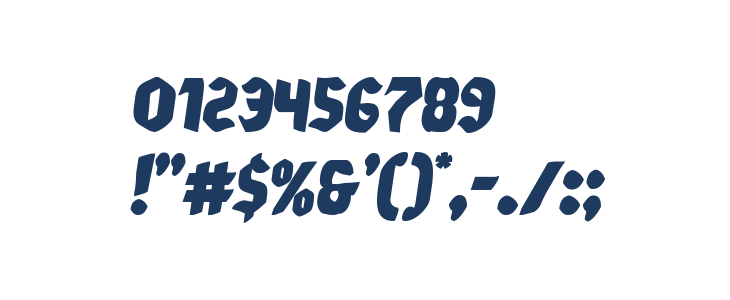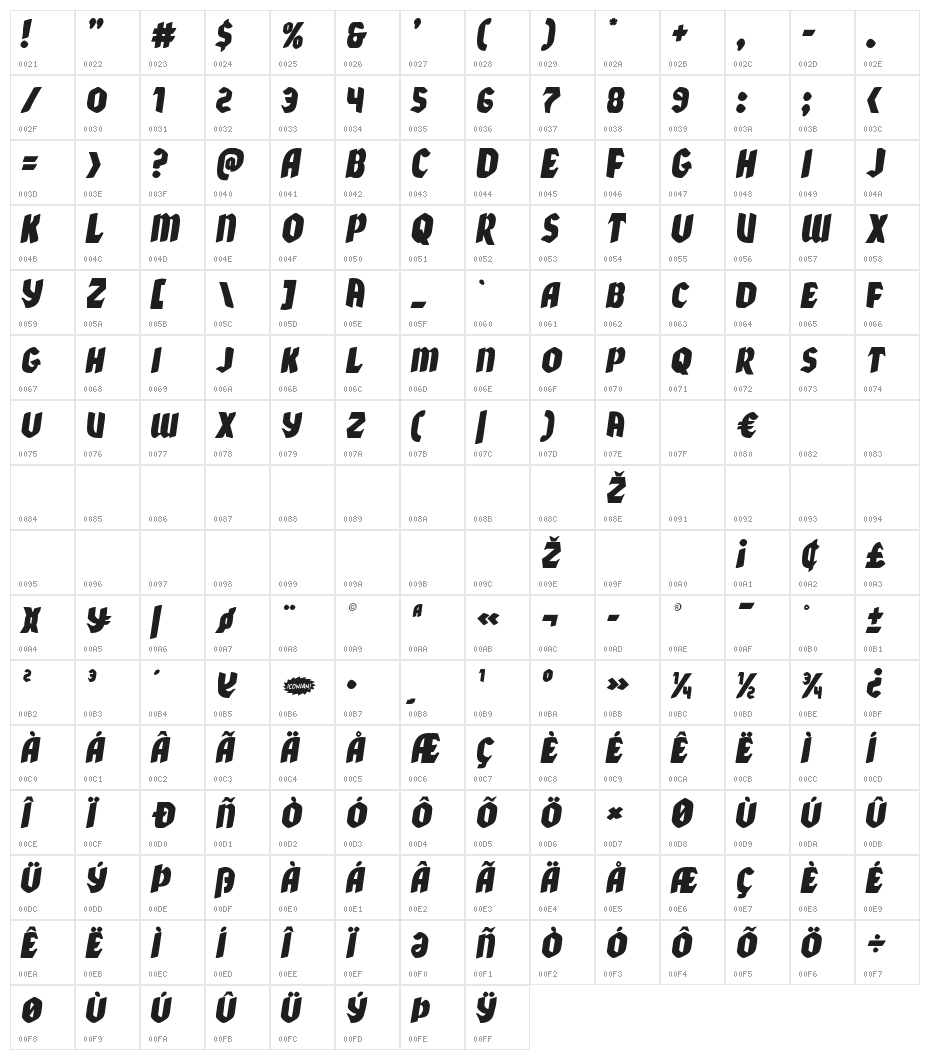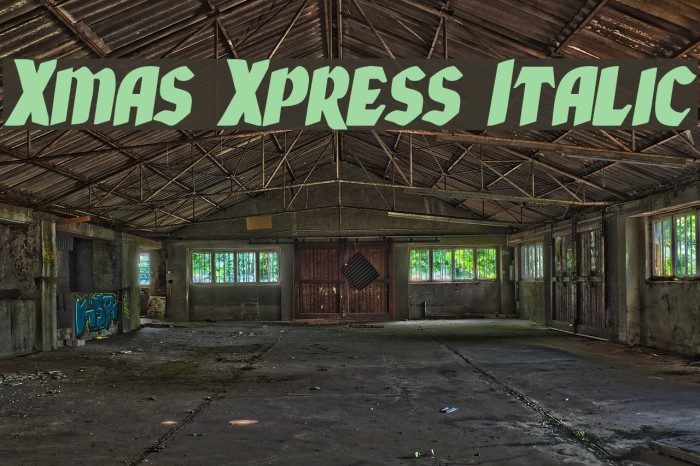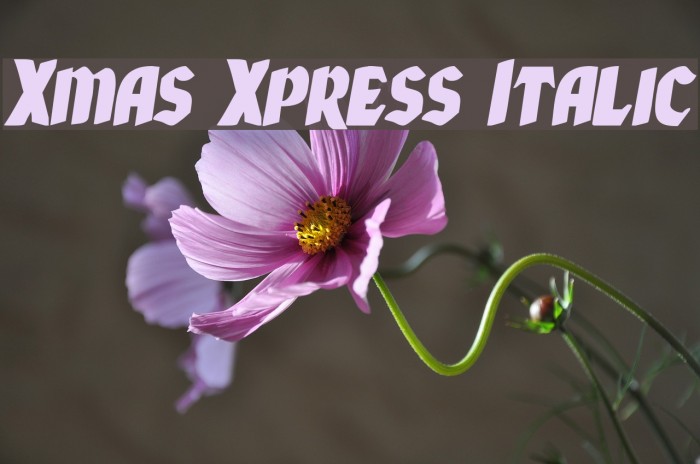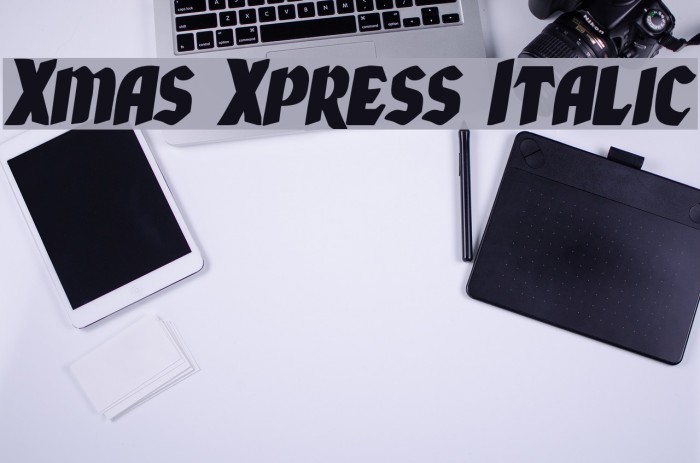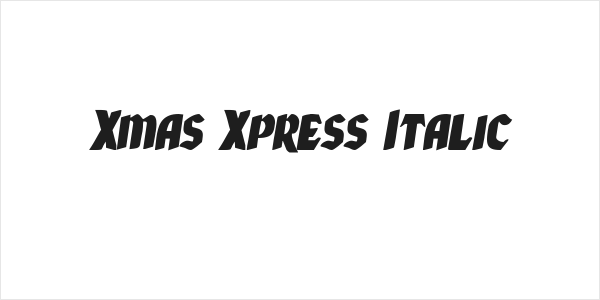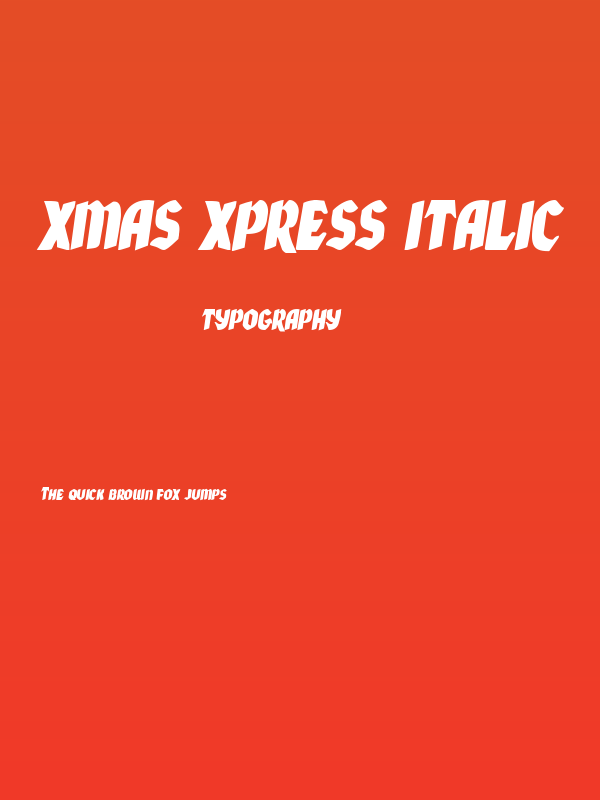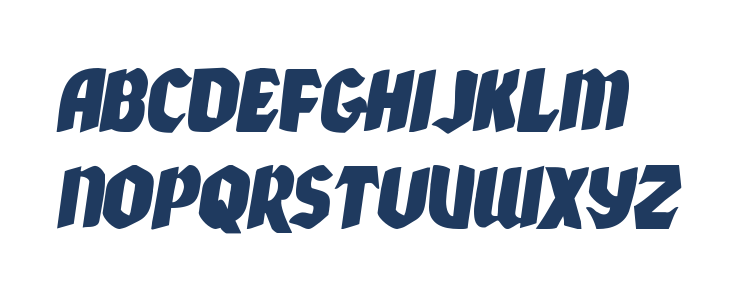
Xmas Xpress Italic Font
Xmas Xpress Italic Description
This font features a bold and dynamic style with a distinct italic slant, giving it a sense of movement and energy. The characters are thick and robust, with sharp angles and a slightly condensed form. The uppercase and lowercase letters maintain a consistent style, while the numerals and special characters complement the overall design. This font's boldness and unique slant make it stand out, ideal for eye-catching designs.
| Proposed Projects | Ideal for holiday-themed designs, festive posters, greeting cards, and promotional materials that require a lively and bold typeface. |